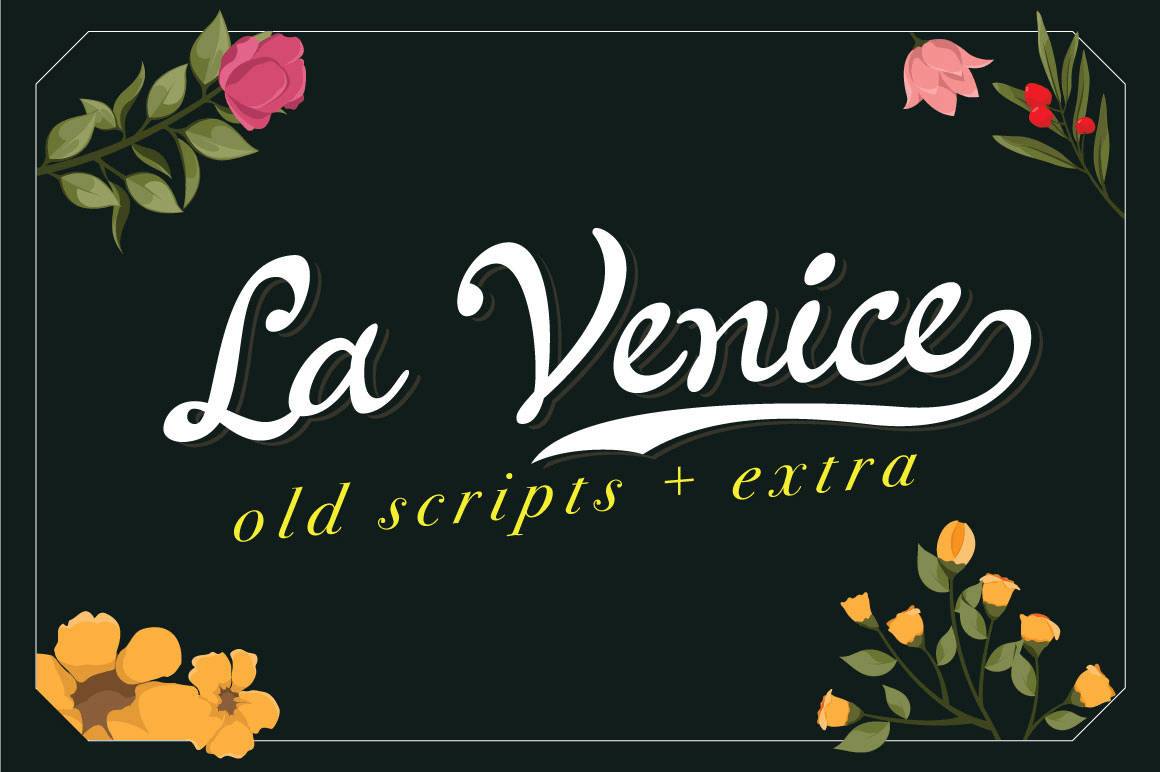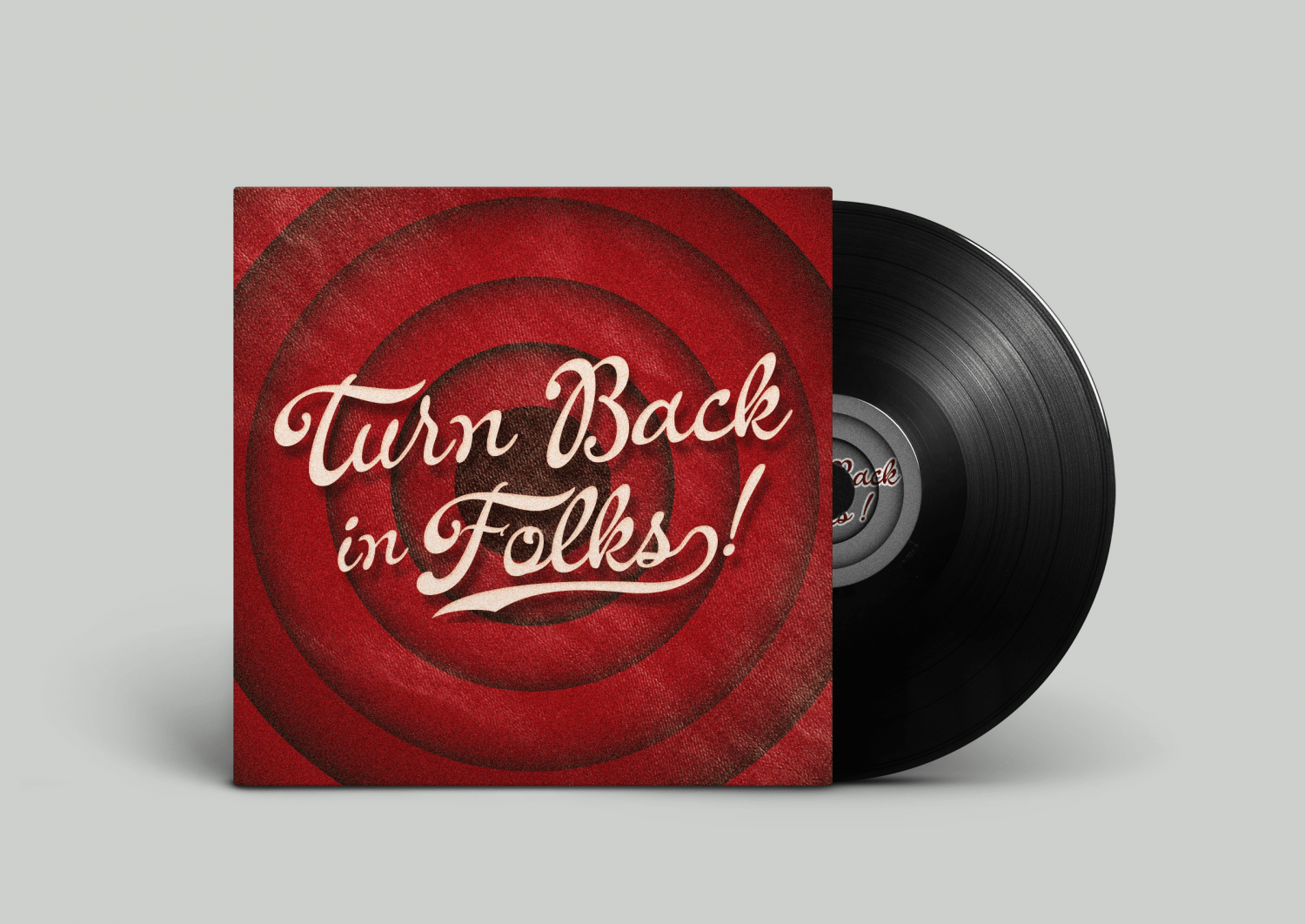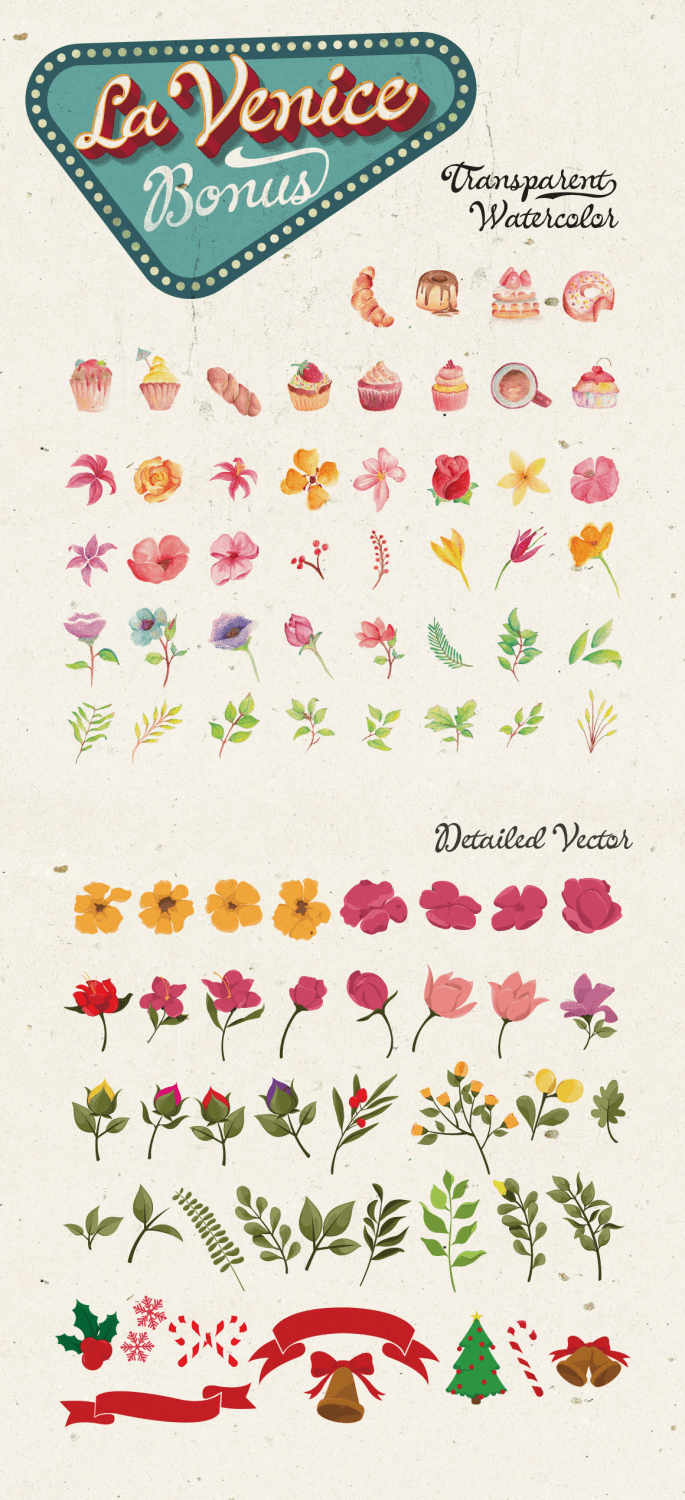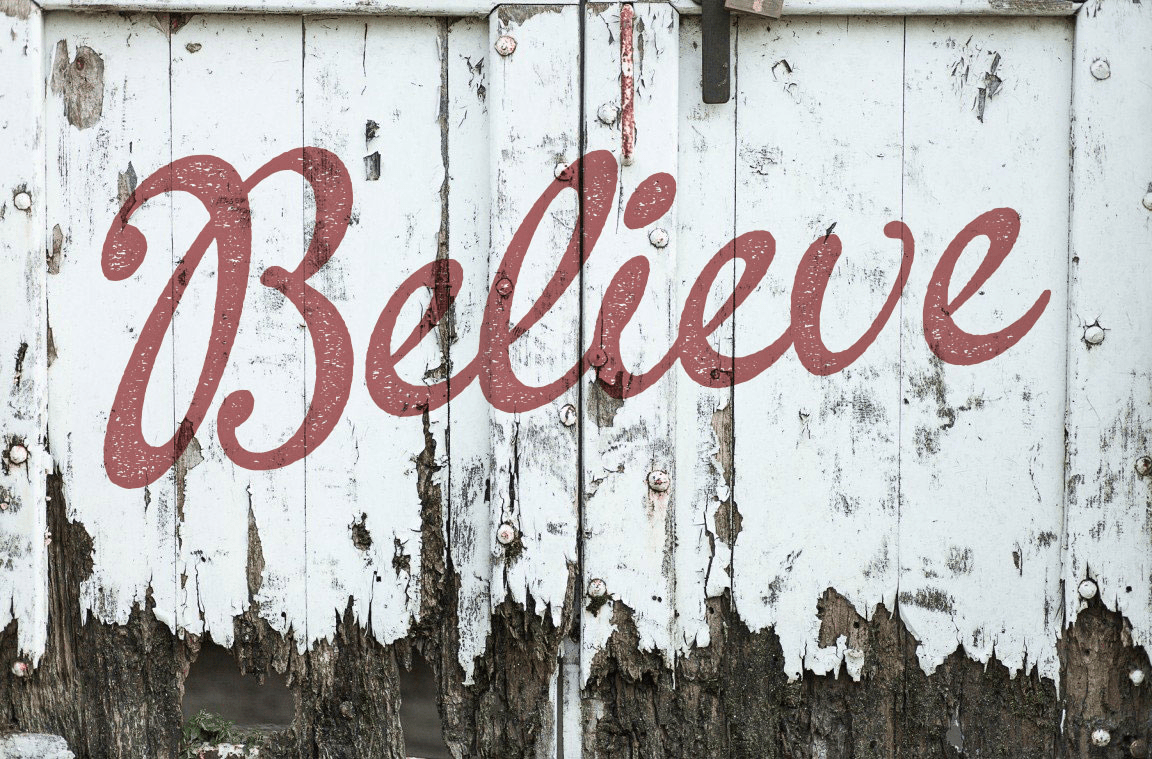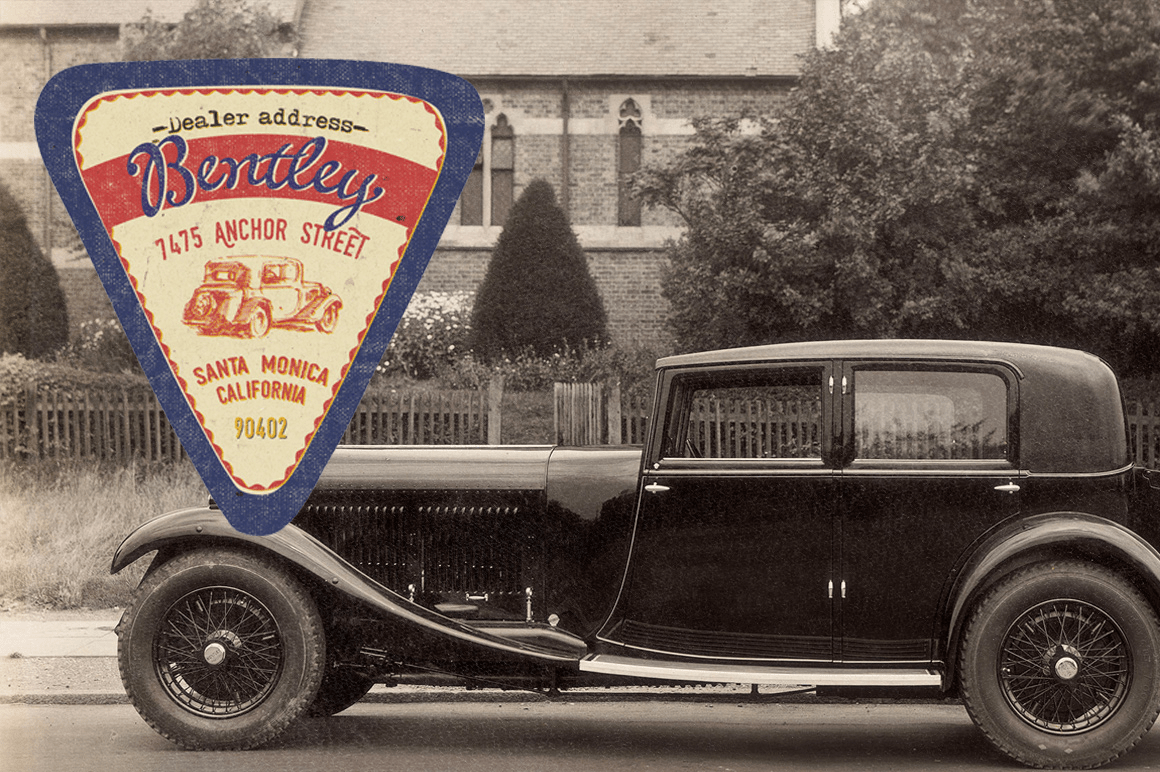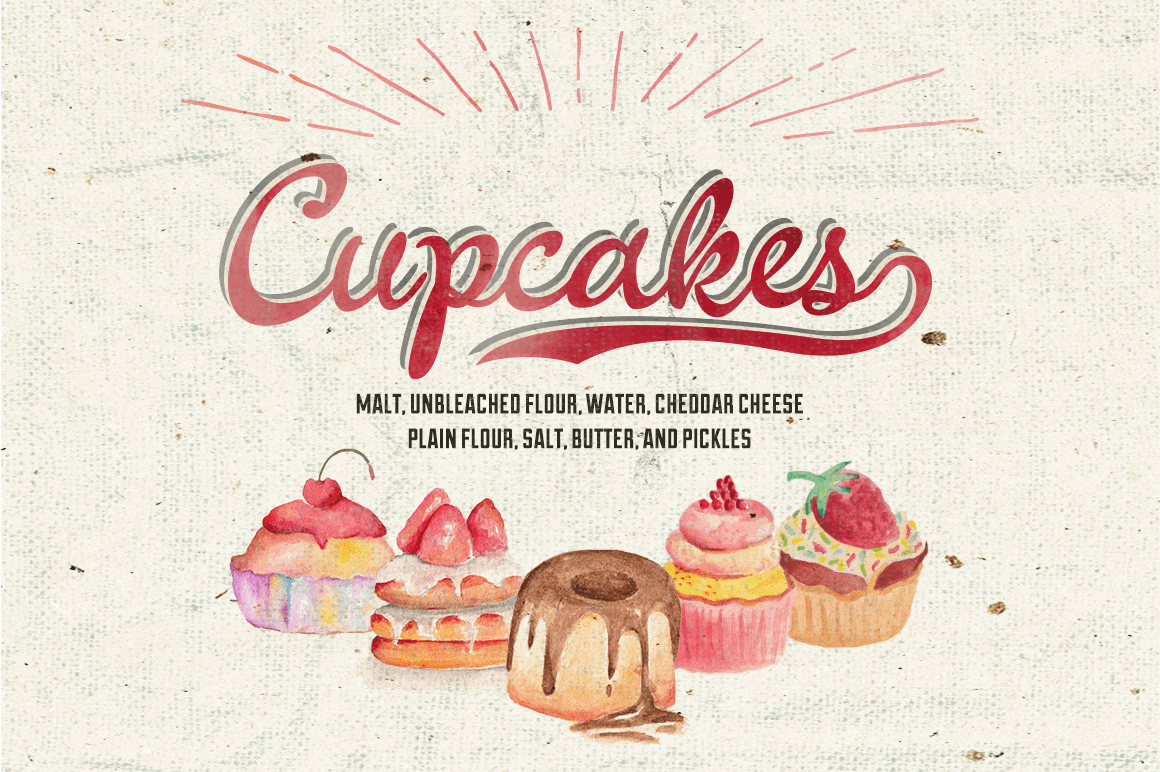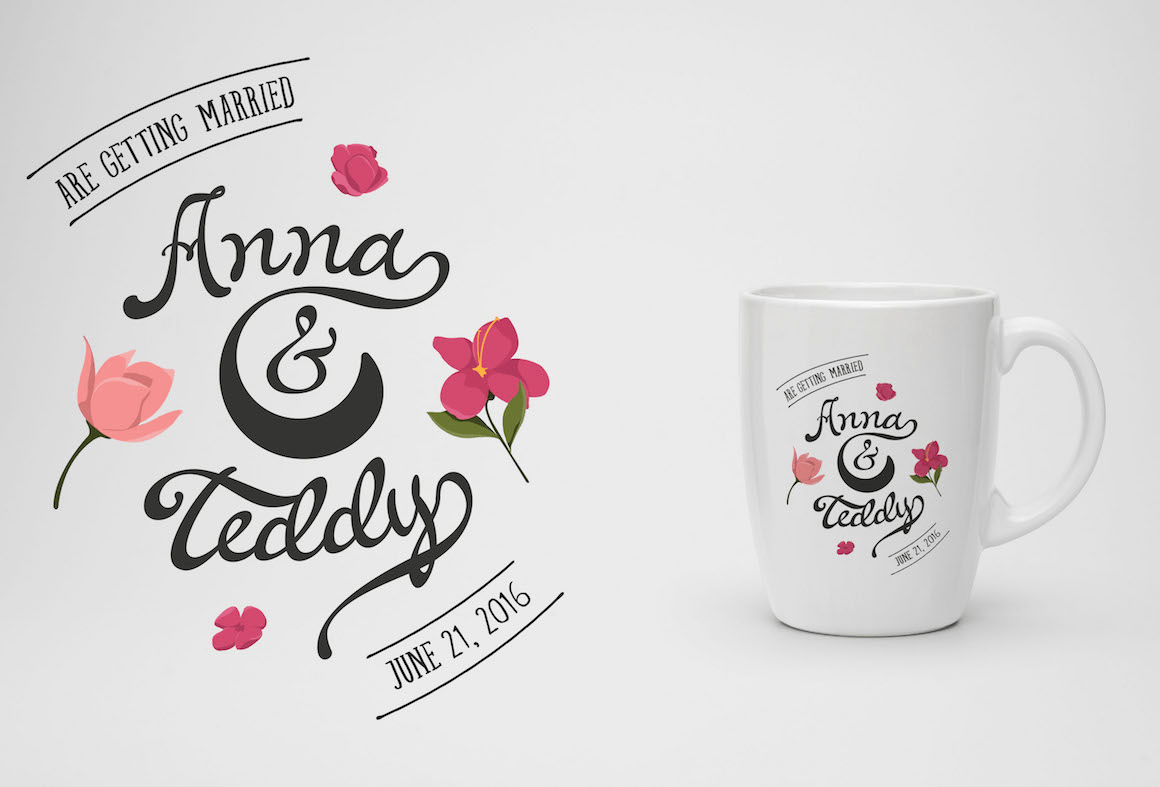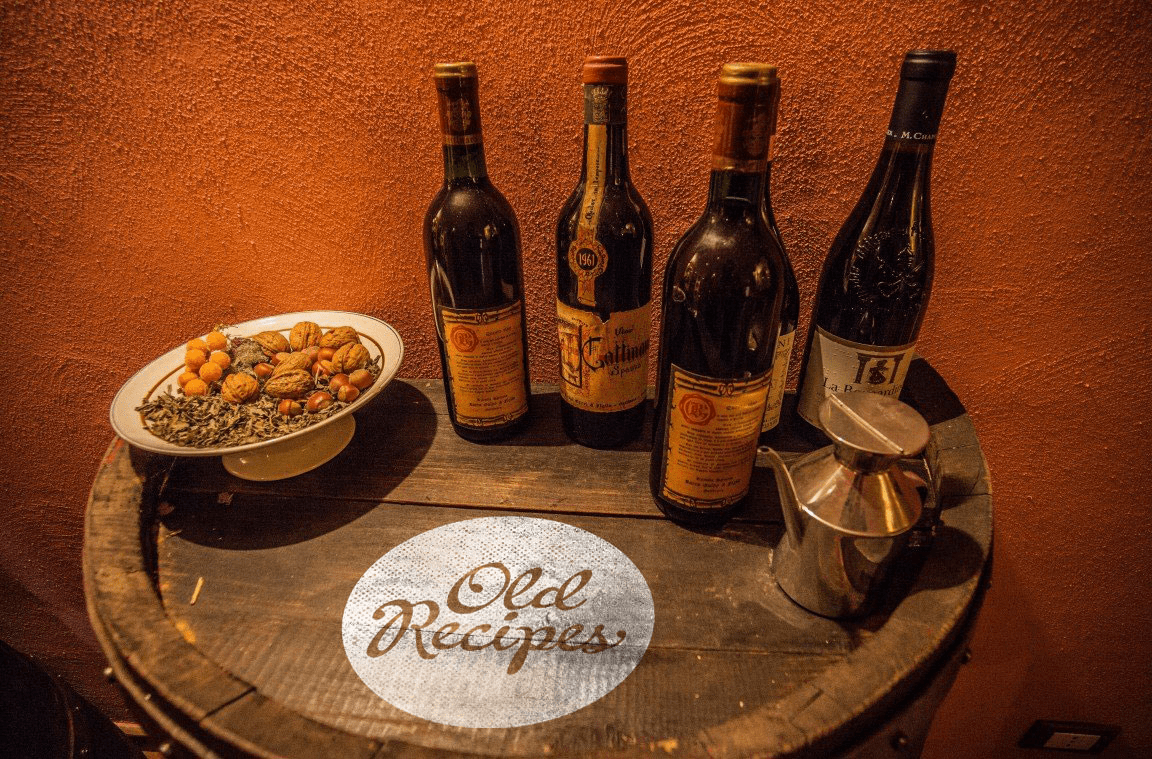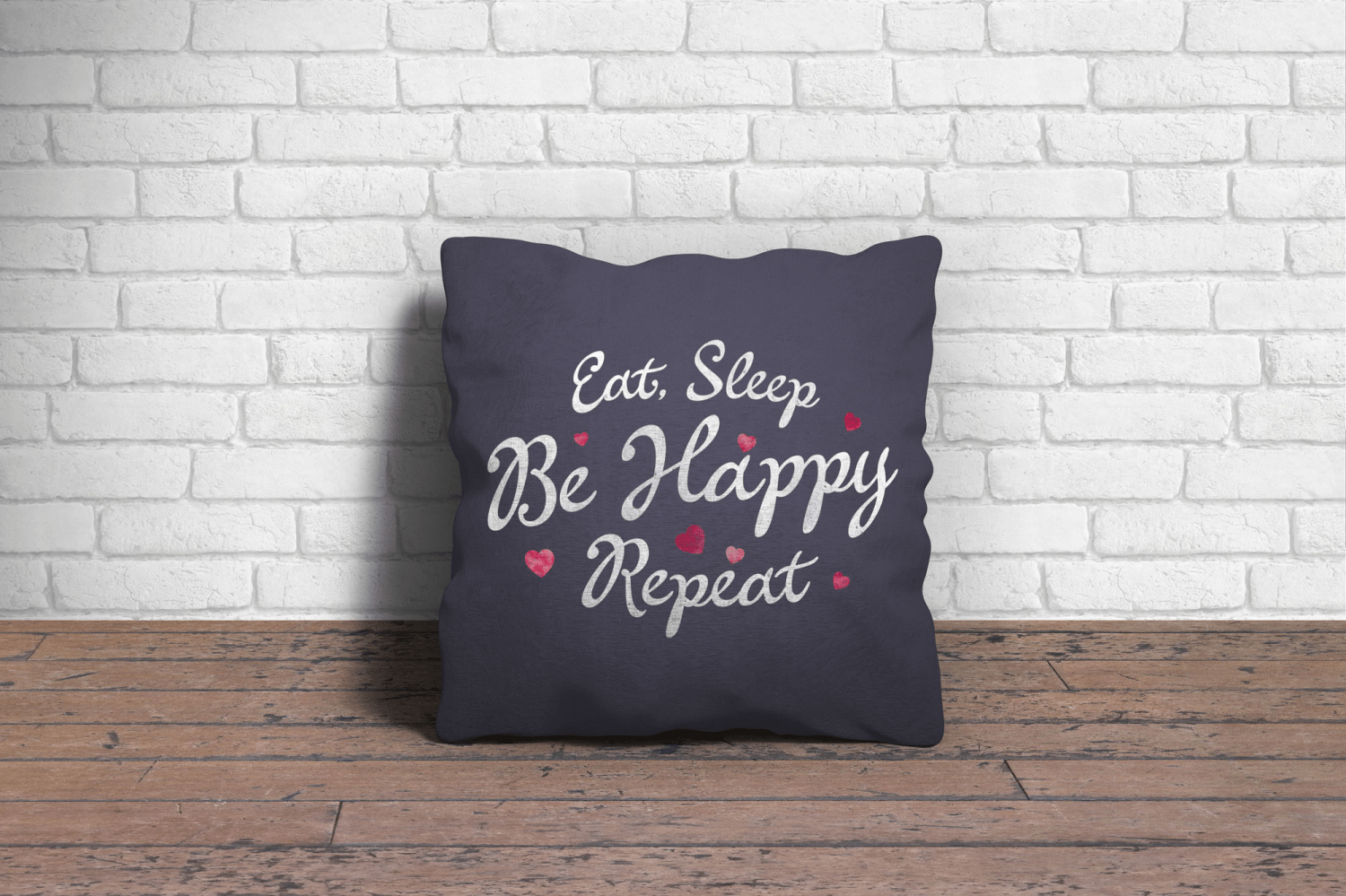
La Venice
Based on long time research on a vintage and modern script font, I try to create the combined vintage and modern style into La Venice Script. Some of letters deliberately aren't connected to create the impression of freedom like a lettering artist. As my work to create a display, La Venice are great with clean modern style and also vintage style with or without grunge effect. My priority on this fonts is the characteristic and I didn't put too much alternates character.
Contextual Alternates (auto replace letter for connecting the each letters)
Stylistic Alternates (alternate of some character)
Discretionary Ligatures (Combining the collision of the letters like "Th")
End Swash (description in How To Use)